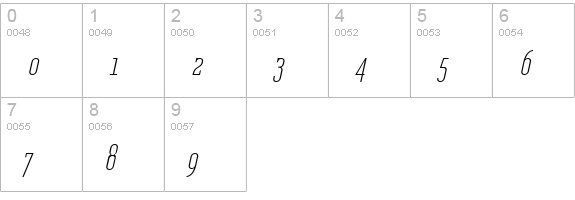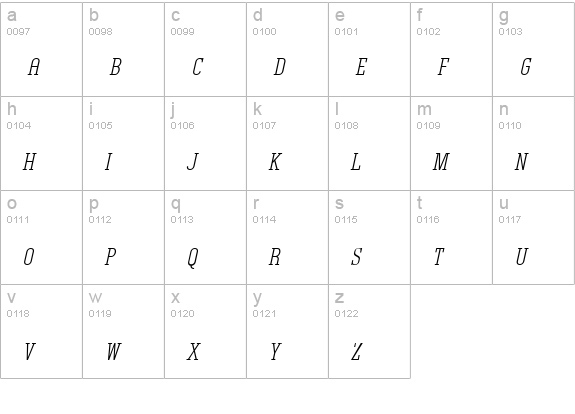
Unknown Caller BTN SC Oblique is a distinctive, italic variant in the Unknown typeface family \xE2\x80\x94 well suited to design and typography projects.
Unknown Caller BTN SC Oblique font is a stylish and modern typeface that is perfect for adding a touch of sophistication and uniqueness to your designs. This font features an oblique slant, adding a subtle sense of movement and flair to your text. With its sleek and contemporary look, Unknown Caller BTN SC Oblique font is ideal for a variety of design projects, including logos, branding, headlines, posters, and more. One of the best things about Unknown Caller BTN SC Oblique font is that it is available for free download at FontsMarket.com. This means that you can easily access and use this amazing font without any cost. Whether you are a professional designer or a hobbyist, having access to high-quality fonts for free is a great advantage. The versatility of Unknown Caller BTN SC Oblique font makes it suitable for both print and digital media. Its clean and crisp lines ensure readability and legibility, making it a great choice for both large and small text sizes. The oblique slant adds a touch of elegance and style to your designs, making them stand out from the crowd. So, if you are looking for a unique and modern font that is freely available to download, Unknown Caller BTN SC Oblique font is the perfect choice for you. Visit FontsMarket.com today and get your hands on this amazing font for free. Elevate your designs with the sleek and sophisticated look of Unknown Caller BTN SC Oblique font.